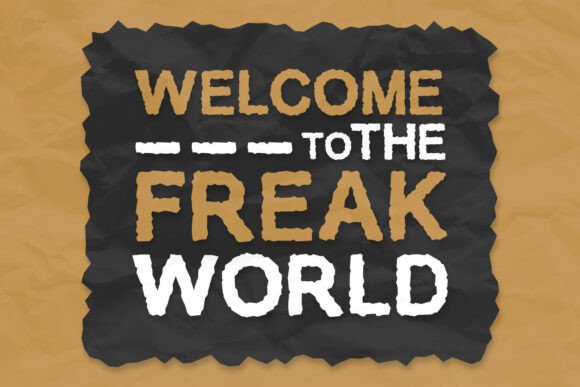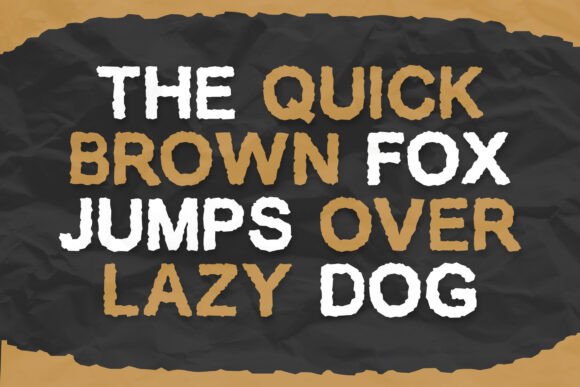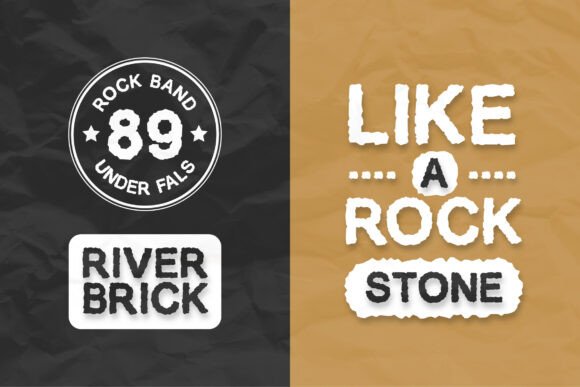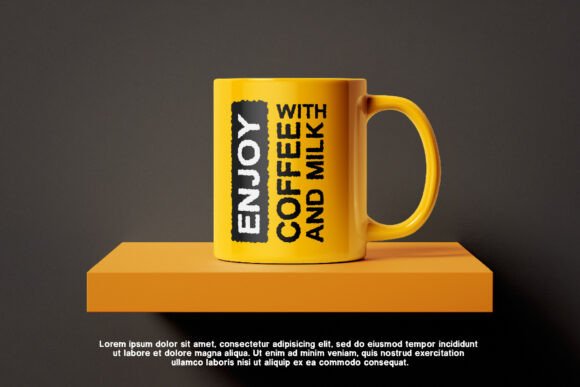
That’s where the Freak Stone Font comes in – a stunning display font inspired by the rugged beauty of rock stone typography. With its high aesthetic quality, this font is perfect for designs that aim to stand out from the crowd. Whether you’re creating a T-shirt design, a comic book cover, or a poster, Freak Stone Font is sure to add an extra layer of visual appeal.
Freak Stone Font Key Features
- Size: The font family consists of multiple weights, ranging from Thin to Black, with 6 weights in total. Each weight is designed to provide a unique aesthetic and expressive feel.
- Unique Characteristics: The font’s distinctive stone-like texture and irregular shapes give it a rugged, hand-crafted feel. This unique aesthetic makes it perfect for designs that require a touch of edginess and sophistication.
- Language Support: Freak Stone Font supports a wide range of languages, including Latin, Cyrillic, and Greek alphabets, making it suitable for international projects and multilingual designs.
- kerning and Ligatures: The font includes advanced kerning and ligature pairs, ensuring that text sets up smoothly and visually appealing, even at small font sizes.
Freak Stone Font Review
Overall, I’m quite impressed with the Freak Stone Font. It’s a bold, eye-catching font that’s perfect for making a statement in your designs. ✨
- The font’s unique, distressed look adds a lot of character to any design.
- The bold weights are great for headlines and titles, while the lighter weights are suitable for body text.
- The font’s versatility makes it suitable for a wide range of designs, from logos to brochures.
However, there are a few limitations to consider. ⚠️
- The font may not be suitable for fine typography or text-heavy designs, as the distressed look can make text difficult to read.
- The font’s uniqueness can also make it challenging to pair with other fonts, so you may need to spend some time finding the perfect companion fonts.
Overall, I’d say that the Freak Stone Font is a great choice for designers who want to add some edge to their designs. While it may have some limitations, its unique look and versatility make it a valuable addition to any design toolbox.
Getting the Most Out of Freak Stone Font
For best results, use Freak Stone Font in bold or italic styles to add emphasis to your text. Experiment with different font sizes and styles to create a unique visual effect.
Freak Stone Font is perfect for:
- Designing eye-catching headings and titles.
- Creating a unique and memorable brand identity.
- Adding a touch of personality to your digital designs.